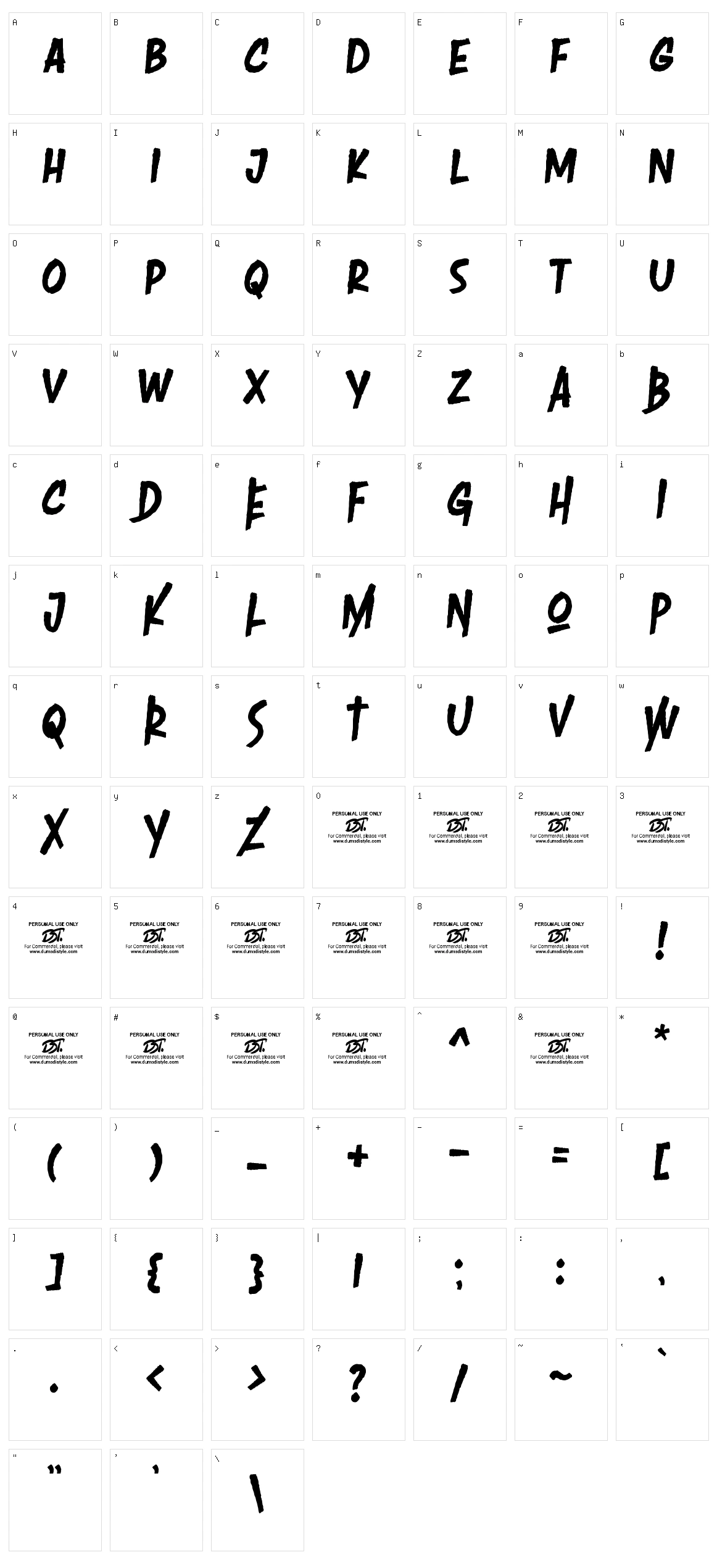
The free font Remover is carefully designed by DumadiStyle, showcasing a thoughtful balance of creativity and usability and falls under the Script font style. When you download the ZIP file, it contains only 808.59 KB of font files, making it lightweight and quick to download. Please review the license details below to understand permitted usage and distribution rights. If license information is not available, we recommend using this font for personal projects only or contacting the author directly for commercial usage permissions.